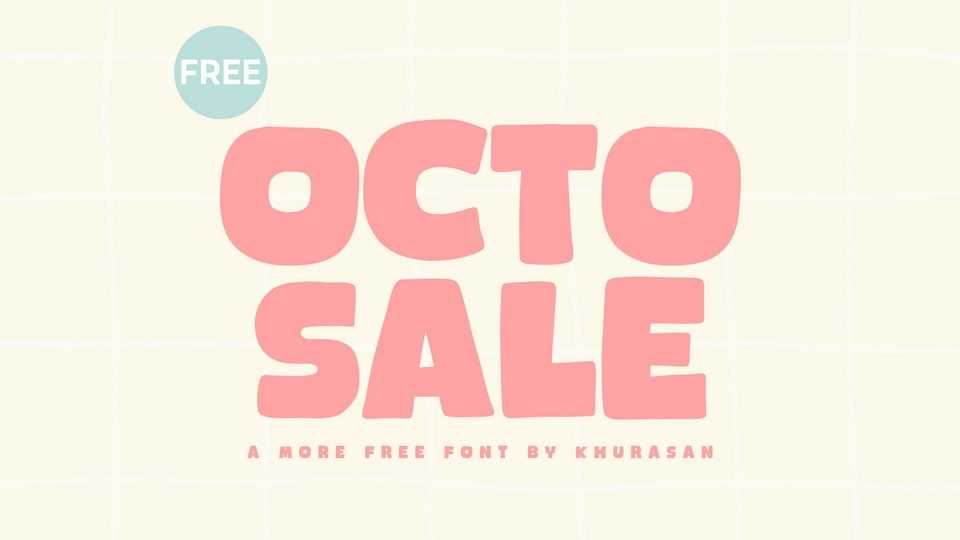
Download Octosale font, a cute and bouncy display typeface with rounded corners and a soft, pillowy feel with its bold, geometric letterforms balance simplicity.